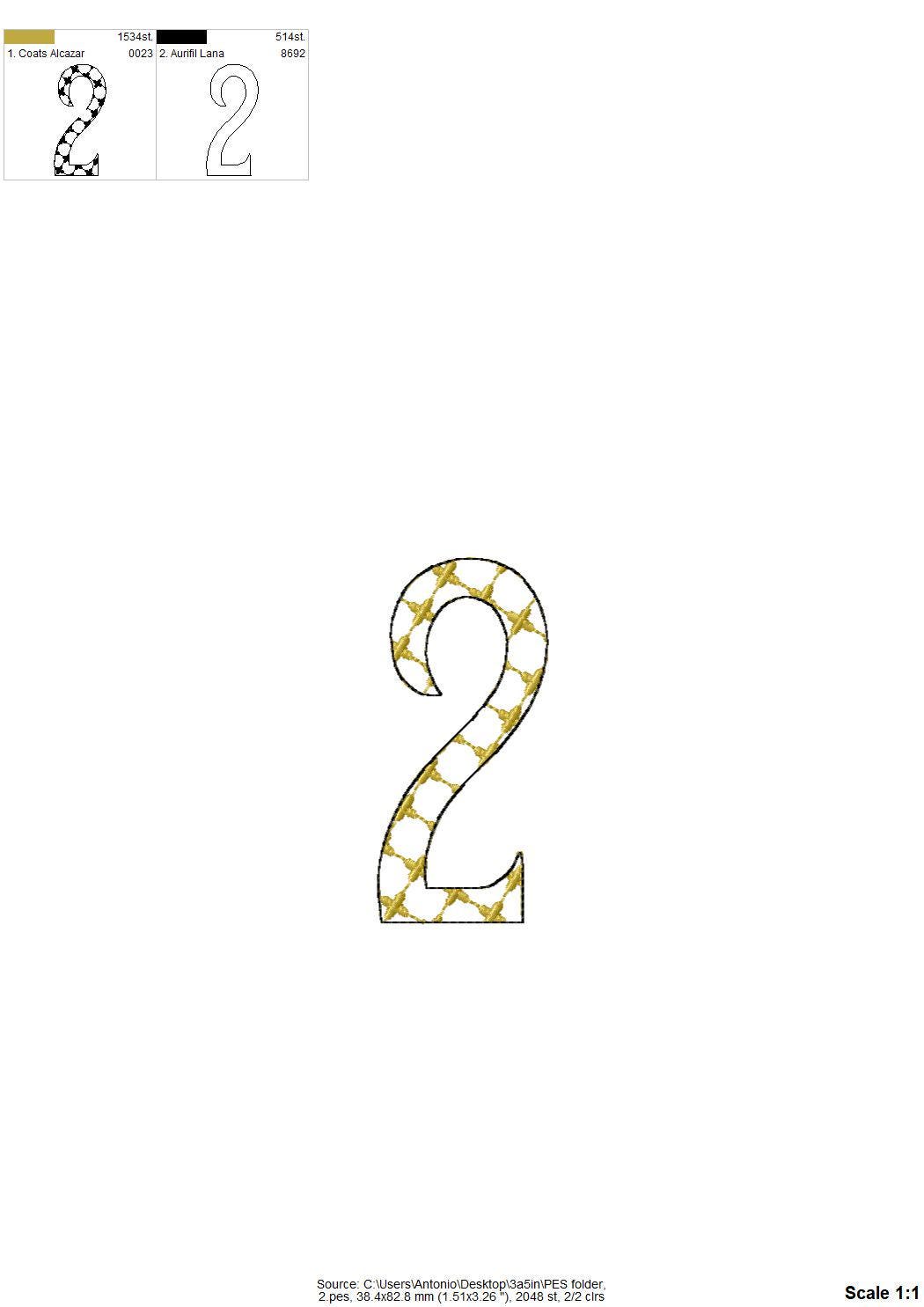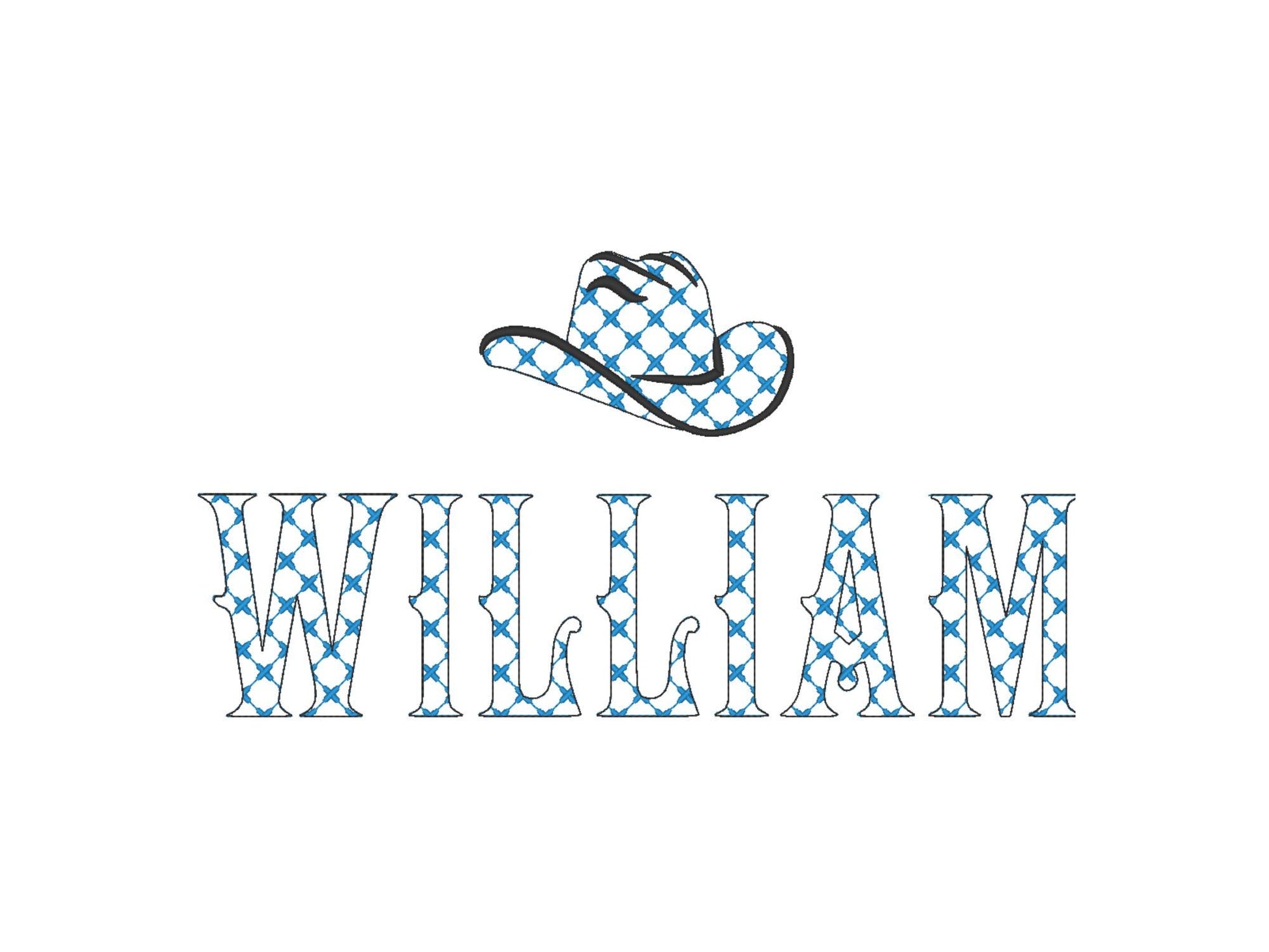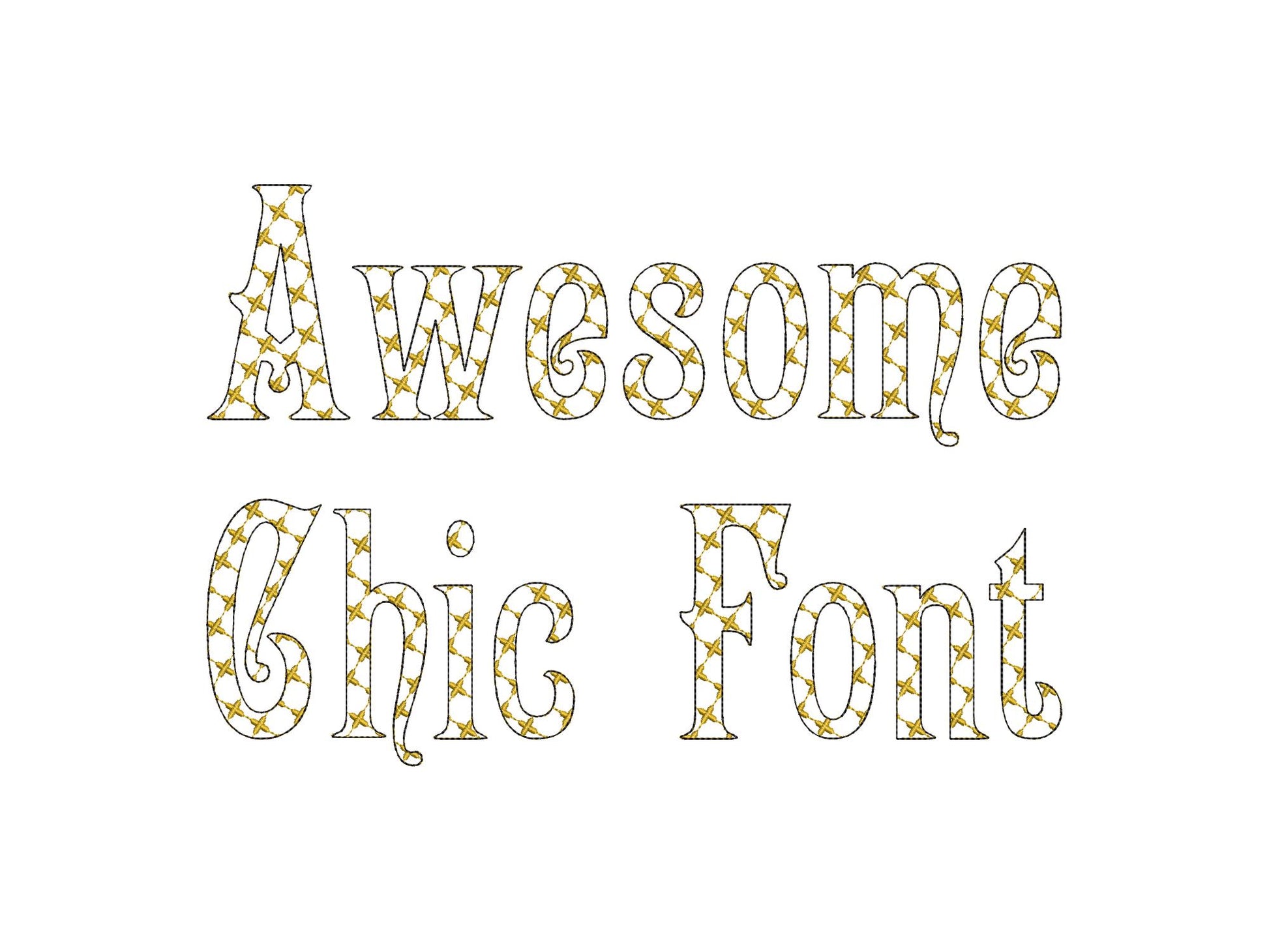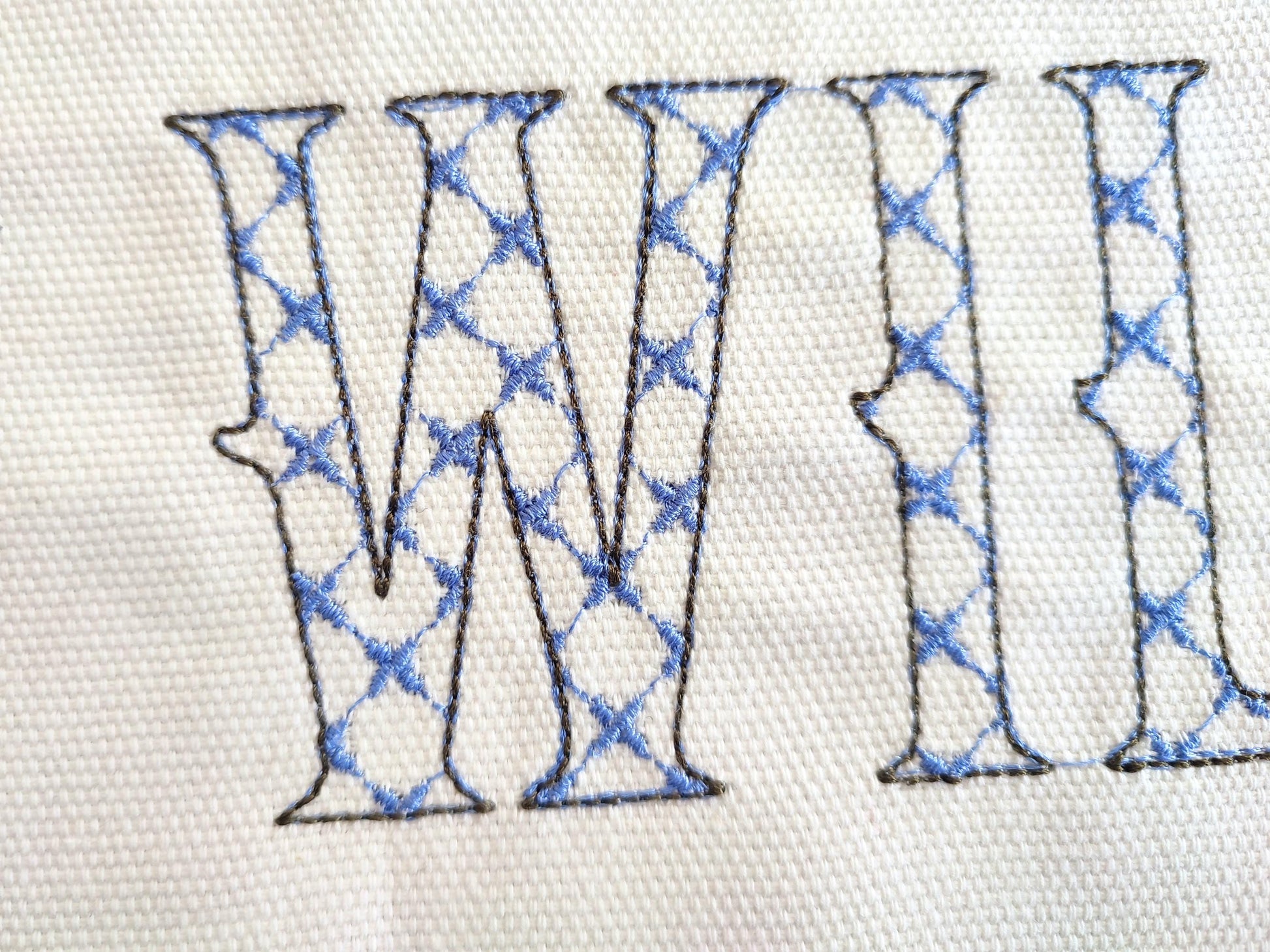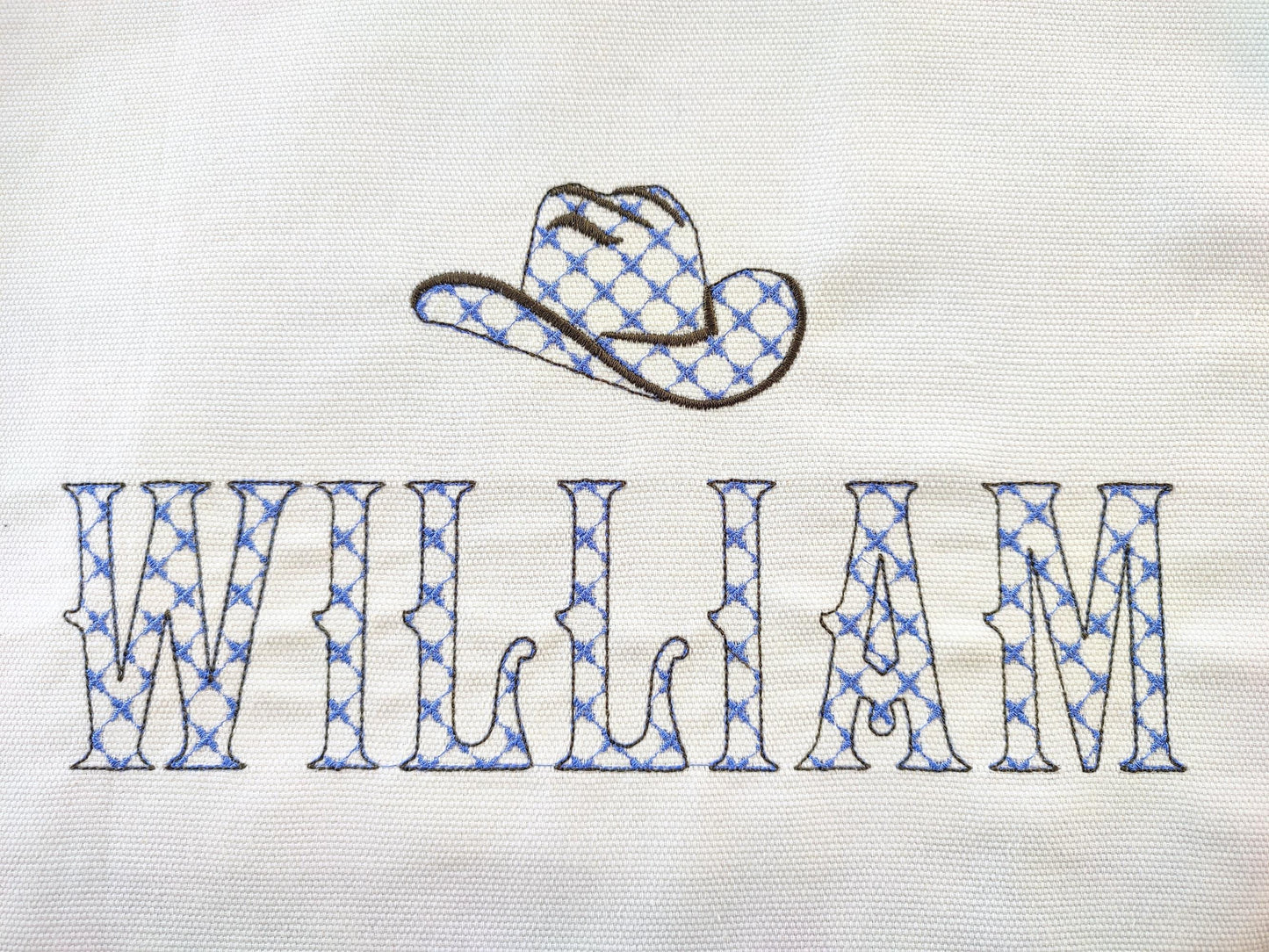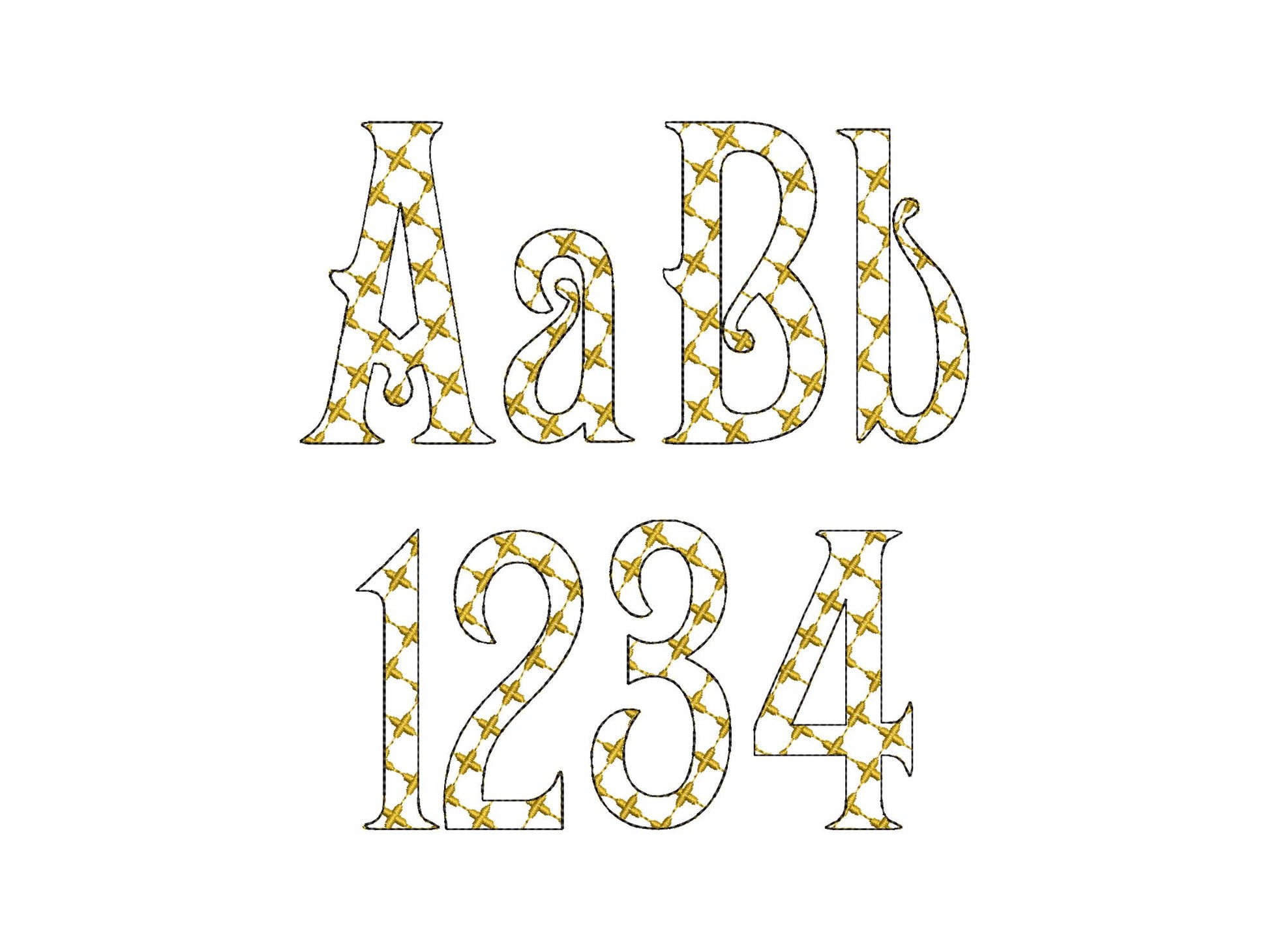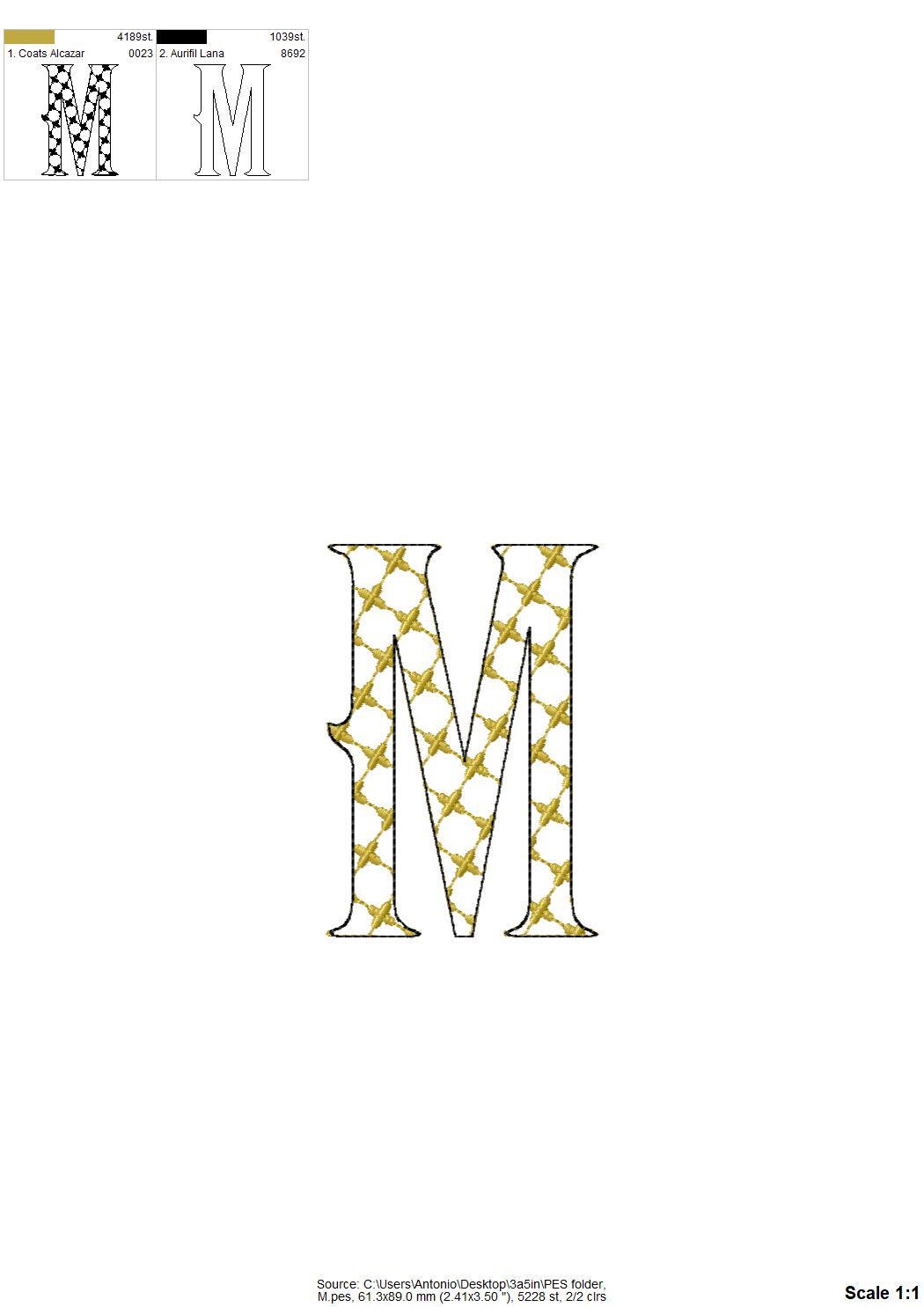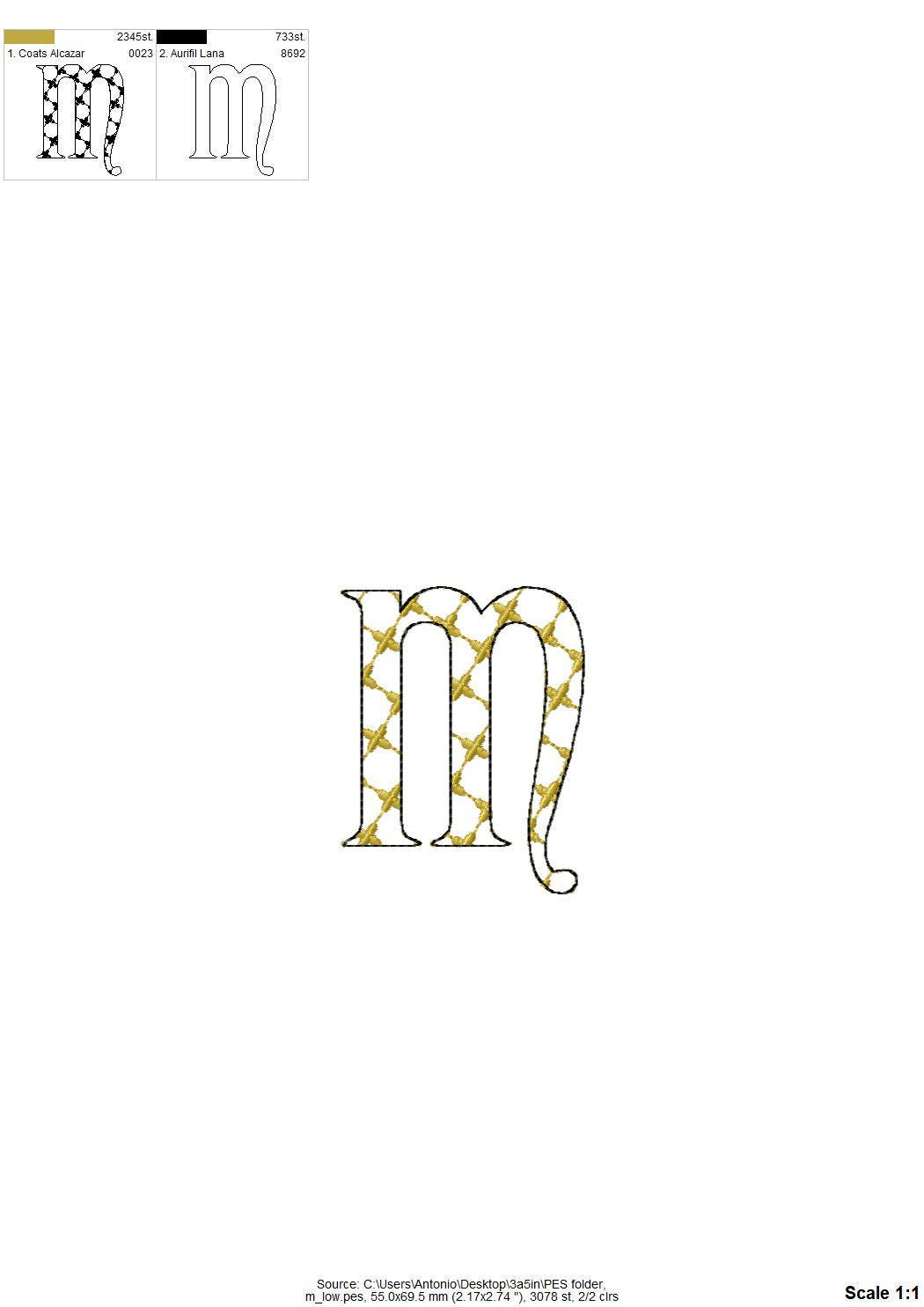
Classic Patterned Fishtail Font
Or click to open the linkA chic patterned font in Old English style, in light stitch that looks like lace, for monograms and names on shirts, pillows and bags.
A quick stitch: the pattern is part of the embroidery and the fabric shows through. Uppercase and lowercase letters, numbers and punctuation in seven sizes: 1.6, 2, 2.7, 3, 3.5, 4.1 and 5.7 inches.
- Chic patterned Old English style font
- Uppercase, lowercase, numbers 0-9, punctuation
- 7 sizes, 1.6 to 5.7 in